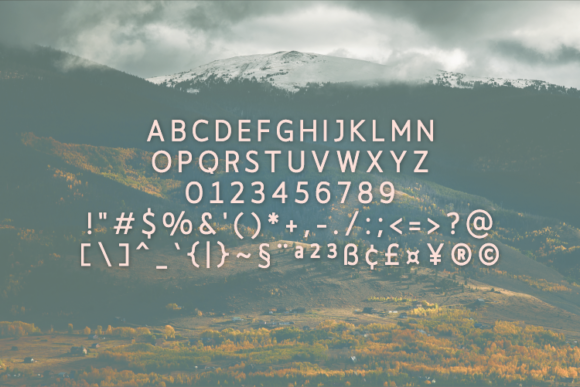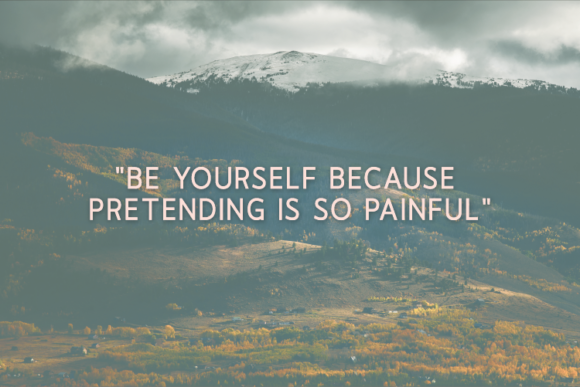
Introducing Forbult Font: Elevate Your Designs with a Stylish and Delicate Sans Serif
Are you on the hunt for a font that embodies style, delicacy, and a touch of modern flair? Look no further than Forbult Font. This stunning sans serif font is making waves in the design community, and for good reason. With its clean, neat, and smooth vibe, Forbult is poised to become a favorite among designers and crafters alike.
The Characteristics of Forbult Font
Forbult Font is a masterclass in minimalist design. Its sans serif structure gives it a sleek and contemporary look that’s perfect for a wide range of applications. From branding and advertising to packaging and digital media, Forbult’s versatility knows no bounds. The font’s delicate lines and curves create a sense of elegance and sophistication, making it an ideal choice for designers who want to add a touch of refinement to their work.
Why Forbult Font Stands Out
So, what sets Forbult Font apart from other sans serif fonts on the market? For starters, its unique blend of style and simplicity makes it a standout. The font’s smooth lines and curves create a sense of fluidity, making it easy to read and visually appealing. Additionally, Forbult’s clean and neat design ensures that it will work seamlessly with a wide range of design elements, from bold graphics to subtle textures.
Forbult Font is a chameleon of a font, capable of adapting to a wide range of design projects. Here are just a few examples of how you can use Forbult to elevate your designs:
- Branding and Identity: Use Forbult to create a lasting impression with your brand’s logo, business cards, and letterhead.
- Digital Media: Forbult is perfect for website headers, social media graphics, and digital advertising.
- Packaging: Add a touch of sophistication to your product packaging with Forbult’s elegant design.
- Crafting and DIY: Forbult is a great choice for crafters and DIY enthusiasts who want to add a personal touch to their projects.
Tips for Using Forbult Font Effectively
To get the most out of Forbult Font, here are a few tips to keep in mind:
- Pair it with bold graphics: Forbult’s delicate design works beautifully with bold graphics and textures.
- Experiment with colors: Forbult looks great in a variety of colors, from bold and bright to soft and pastel.
- Use it sparingly: Forbult’s elegant design can be overwhelming if overused. Use it sparingly to create a lasting impression.
In conclusion, Forbult Font is a stylish and delicate sans serif font that’s sure to become a favorite among designers and crafters. Its clean, neat, and smooth vibe makes it perfect for a wide range of design projects, from branding and identity to digital media and packaging. With its versatility, elegance, and sophistication, Forbult is a must-have font for anyone looking to elevate their designs.
Get Ready to Elevate Your Designs with Forbult Font